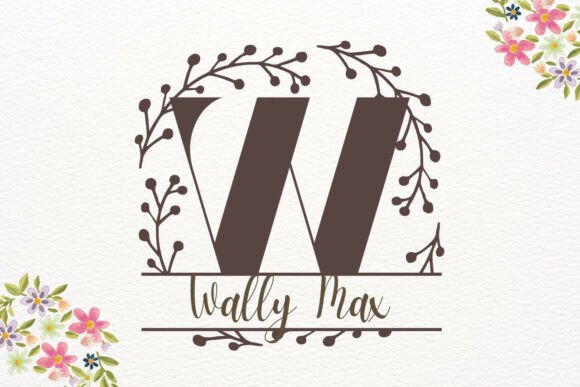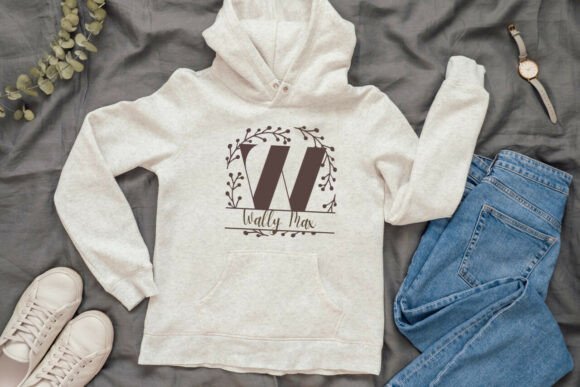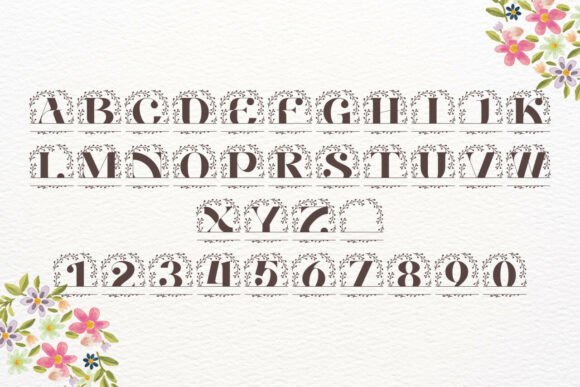
Introduction to Marquessa Split Monogram Font
Meet Marquessa Split Monogram Font turns initials into elegant, gift-ready nameplates in seconds.
The letterforms feel poised and refined, while a crisp horizontal split creates the perfect space for names, dates, or short words Because spacing stays even and counters remain open, results look polished on everything from tiny tags to large wall art.
Key Features of Marquessa Split Monogram Font
Why Choose Marquessa Split Monogram Font?
Marquessa Split Monogram Font offers exceptional quality and versatility, making it a valuable addition to your design toolkit. Whether you’re creating for personal projects or commercial use, Marquessa Split Monogram Font delivers professional results.